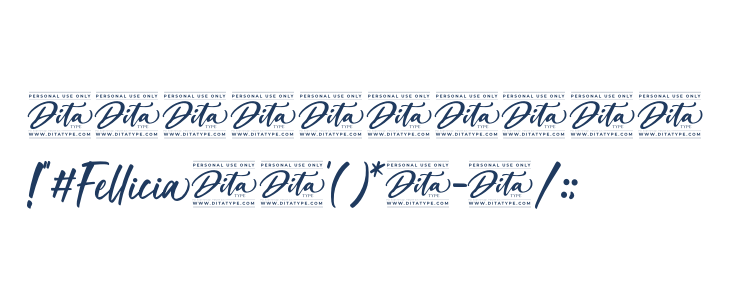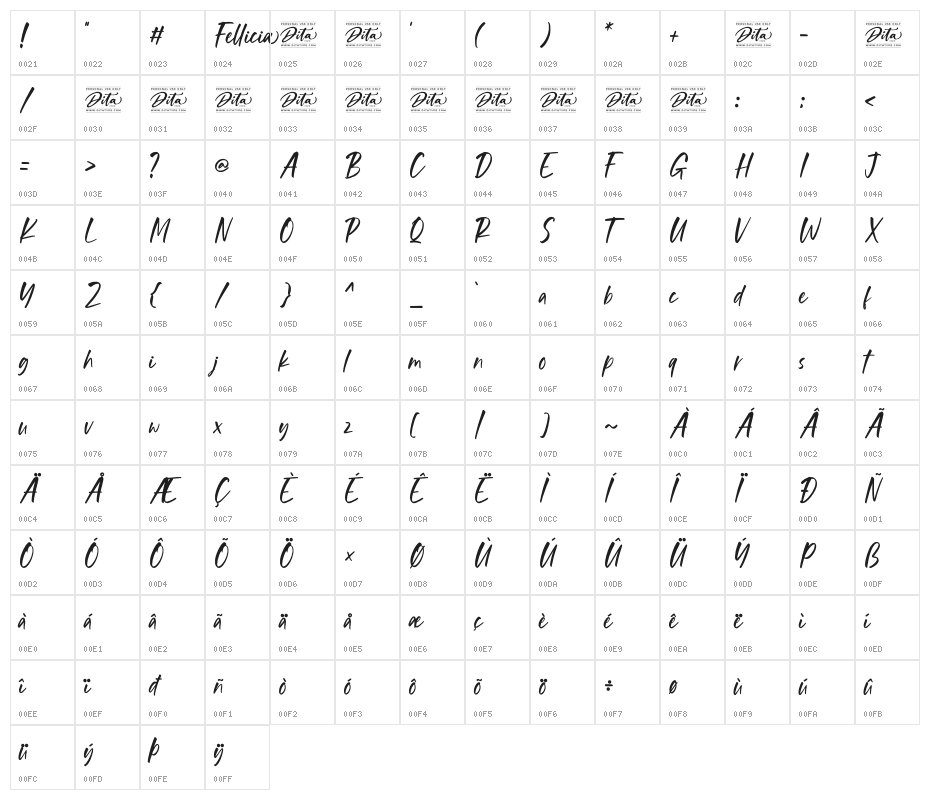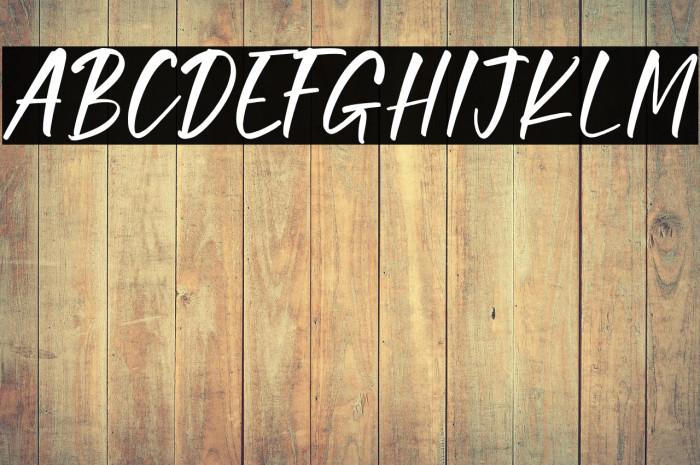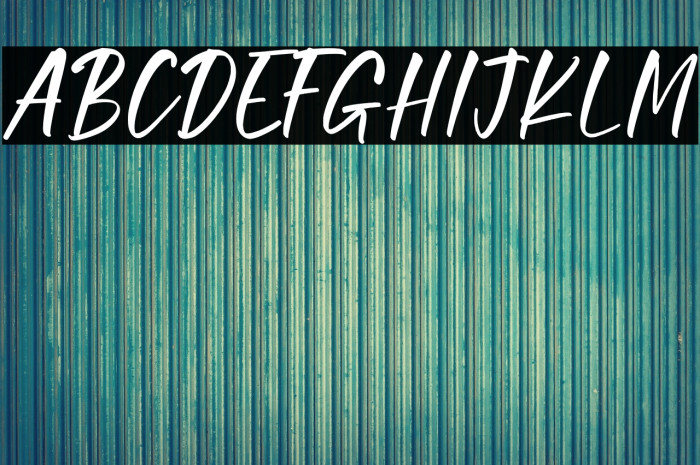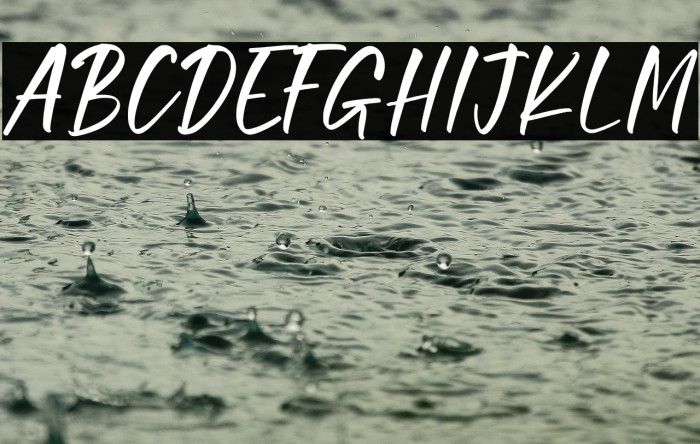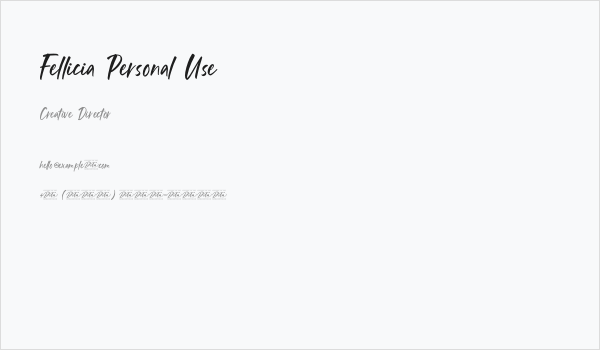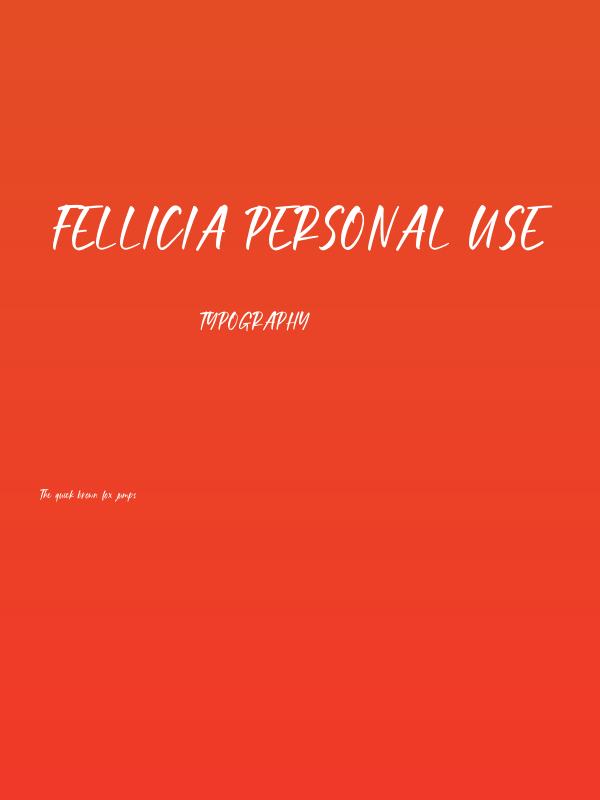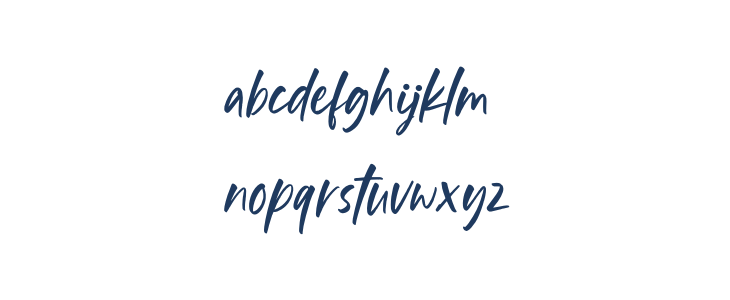
Fellicia Personal Use Font
Fellicia Personal Use Description
This font features a dynamic and expressive handwritten style, characterized by its fluid, cursive strokes and a natural, flowing appearance. The uppercase letters are bold and slightly slanted, giving them a sense of movement and energy. The lowercase letters maintain a consistent style, with smooth curves and a casual, yet elegant feel. The font includes a full set of numerals and a selection of special characters, allowing for versatile use in various design projects. Its overall aesthetic is both modern and approachable, making it suitable for a wide range of creative applications.